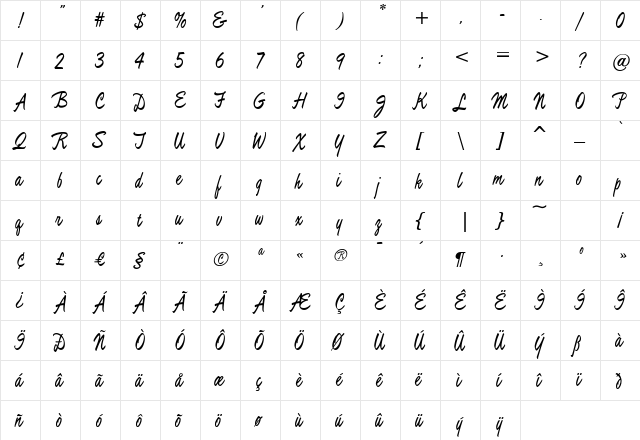
RetroRepro JF Regular
Design Context for RetroRepro JF Typeface
RetroRepro JF has the warm character of retro typography — evoking diners, record sleeves, and the golden age of print advertising.
Font Pairing: Combine RetroRepro JF with a simple slab or neutral sans — period-accurate companions reinforce the vintage feel without competing for attention.
Pro Tip: Lean into RetroRepro JF's period character by pairing it with aged paper textures, muted colour palettes, and vintage illustration styles.